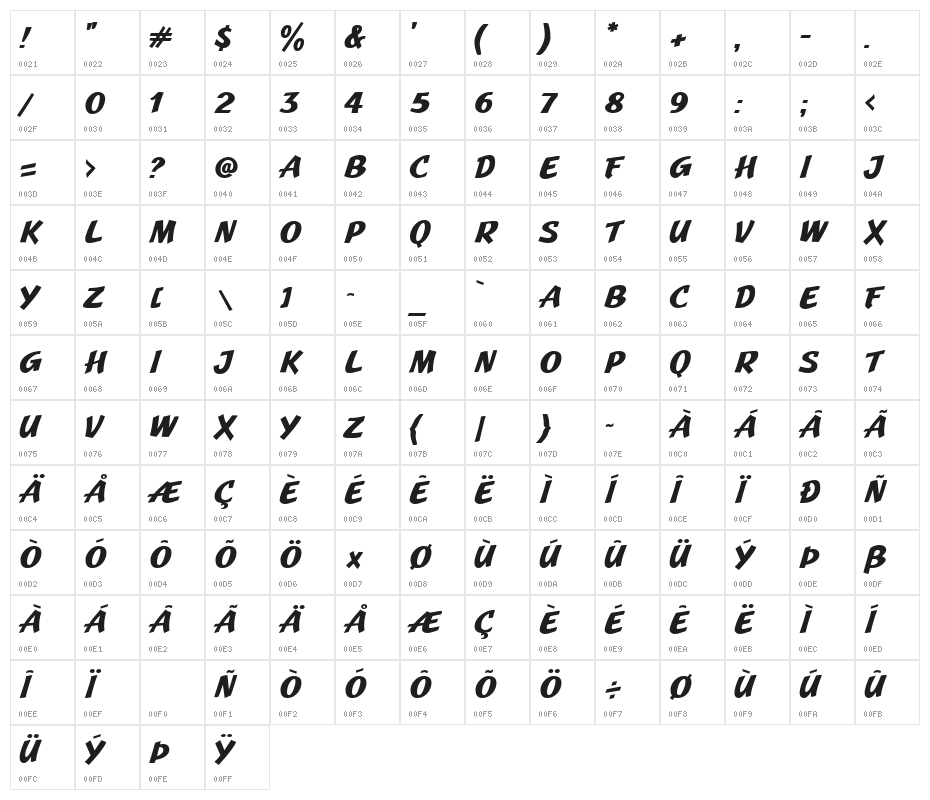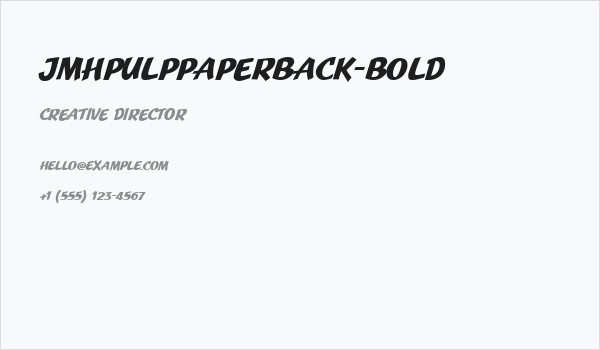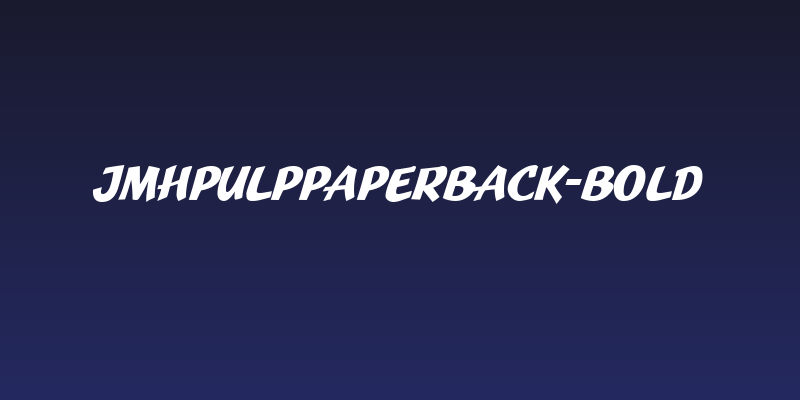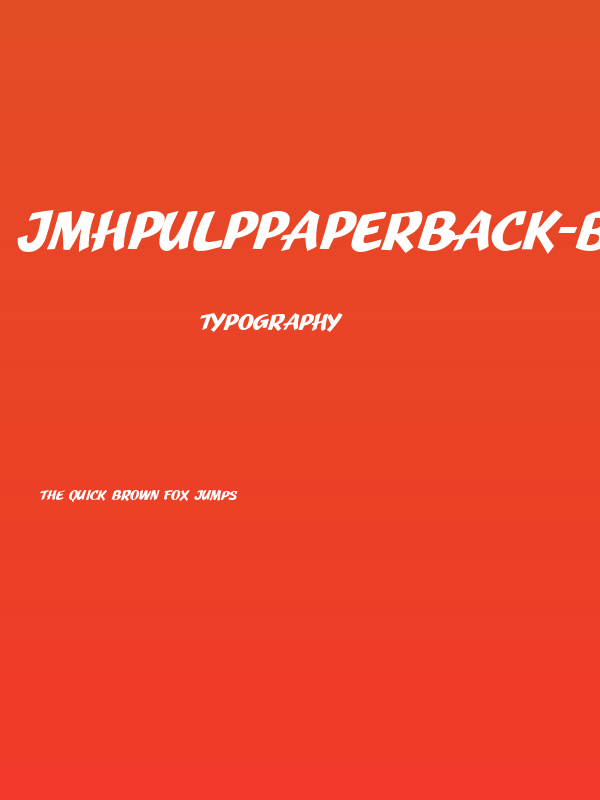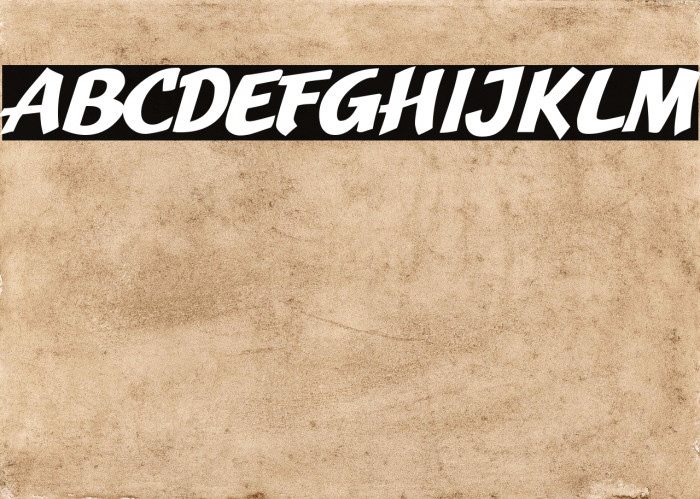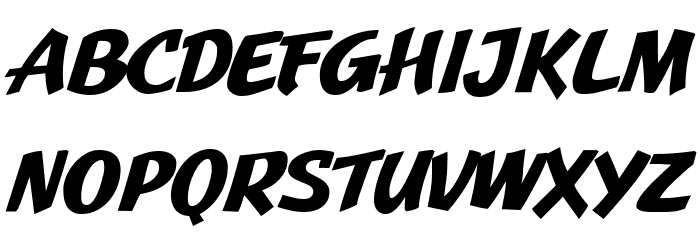
JMHPulpPaperback-Bold Font
JMHPulpPaperback-Bold Description
This font features bold, dynamic strokes with a distinct slant, giving it an energetic and impactful appearance. The characters are robust and slightly condensed, with sharp angles and a sense of movement. The uppercase and lowercase letters maintain a consistent style, with the uppercase being particularly striking. Numbers and special characters are equally bold and expressive, making them stand out. The overall design is reminiscent of vintage pulp fiction covers, evoking a sense of nostalgia and adventure.
| Proposed Projects | Ideal for book covers, posters, and branding projects that require a bold, adventurous look. |